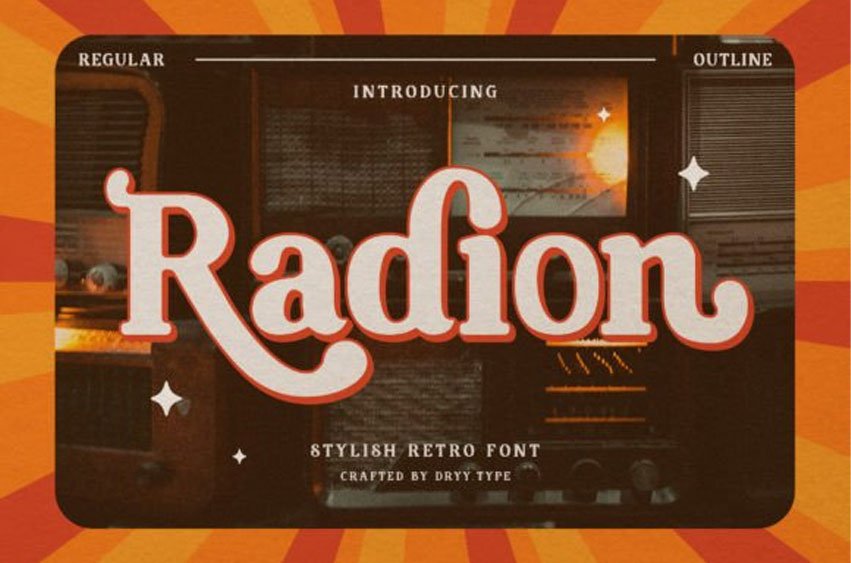
Radion Font
Radion Font is a vintage-inspired typeface that captures the essence of classic typography. With its bold, chunky serifs and distinctive character shapes, this font is perfect for creating a retro feel in your designs. Use it for branding, posters, and other applications that call for a touch of nostalgia and old-school charm.